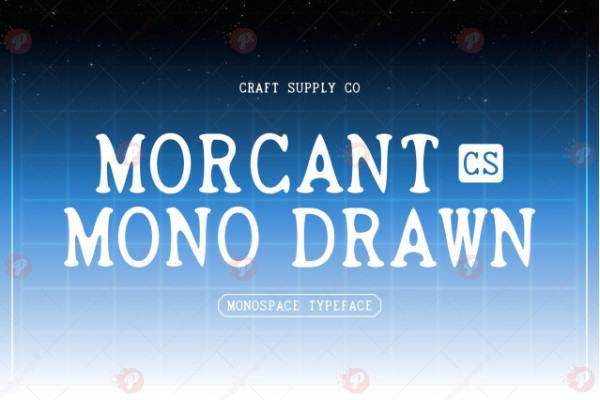
The CS Morcant Mono Drawn Font Free is a hand-drawn monospaced display font that blends artistic sketch style with modern mono alignment. Its balanced spacing, handcrafted lines, and creative texture make it a unique choice for logos, posters, branding, packaging, book covers, flyers, and social media graphics.
Perfect for designers who want a handmade but structured feel, the CS Morcant Mono Drawn Font Free offers a creative yet consistent look, making it ideal for both print and digital design projects.
Typeface: Display / Hand-Drawn / Monospaced
Style: Artistic / Rough / Creative / Mono